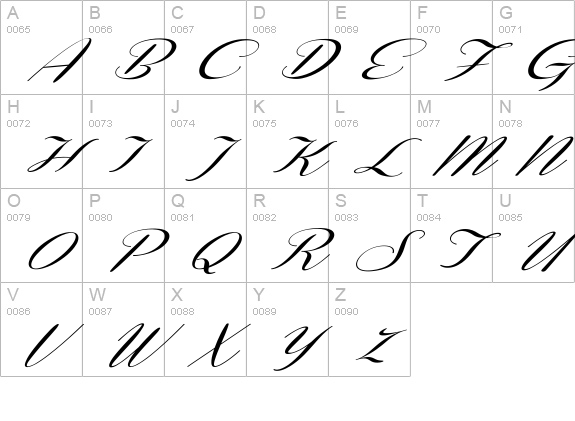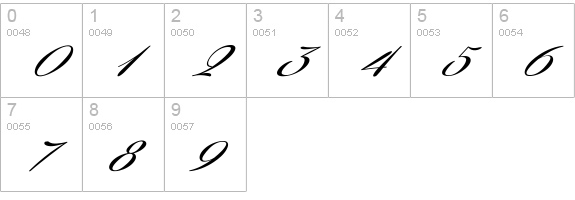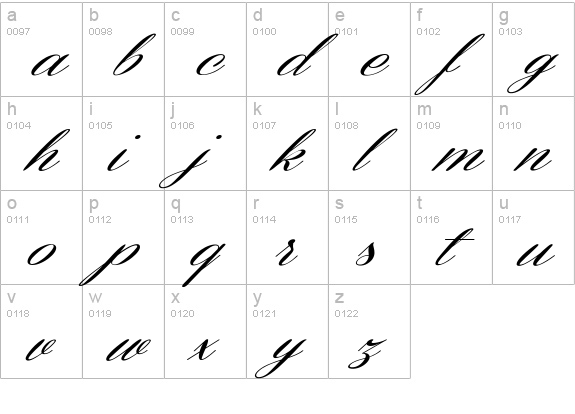
Coneria Script Slanted Demo font is a beautifully elegant script typeface that exudes sophistication and charm. With its slanted design, this font adds a touch of modernity to any project while still maintaining a classic and timeless appeal. The flowing and graceful letterforms of Coneria Script Slanted Demo font make it perfect for a wide range of design projects, including logos, branding, invitations, headlines, and more. Its versatility allows it to effortlessly adapt to various styles, from formal and elegant to casual and playful. What sets Coneria Script Slanted Demo font apart is that it is freely available to download at FontsMarket.com. This means that you can easily access this stunning typeface without any cost or hassle. Whether you are a professional designer or a hobbyist, this font is a valuable addition to your font library. The attention to detail and precision in each letterform of Coneria Script Slanted Demo font is evident, creating a seamless and harmonious flow of characters. The slanted design adds a dynamic and energetic touch, creating a sense of movement and liveliness. With its wide range of alternate characters and ligatures, Coneria Script Slanted Demo font offers endless possibilities for creativity and customization. Each character is meticulously crafted, ensuring legibility and readability even at smaller sizes. Whether you are designing a wedding invitation, a restaurant menu, or a magazine headline, Coneria Script Slanted Demo font will elevate your project and add a touch of elegance and sophistication. Its timeless beauty and versatility make it a must-have for any designer. Add a touch of class and elegance to your designs with Coneria Script Slanted Demo font. Download it for free at FontsMarket.com and let your creativity soar.